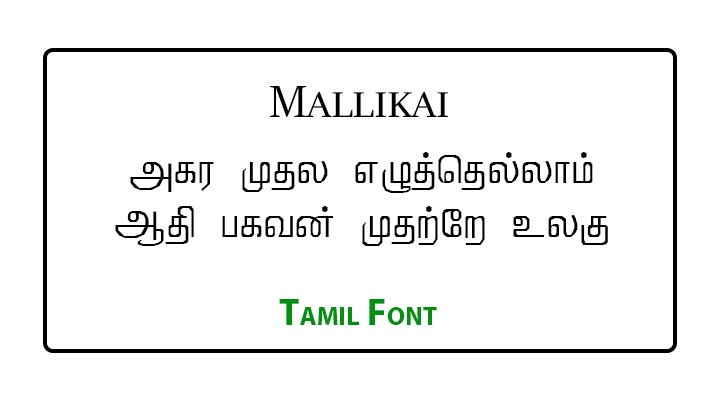
Mallikai Tamil Font Free Download. Mallikai is one of the Tamil Regular Font. Specially used in publications. Here you can download Font and Keyboard Layout for Free. This font is widely used by Tamil Nadu and Sri Lankan Tamil Peoples. The following font was design and generated by by Fontograpgher 3.5.
Mallikai Tamil Font Preview